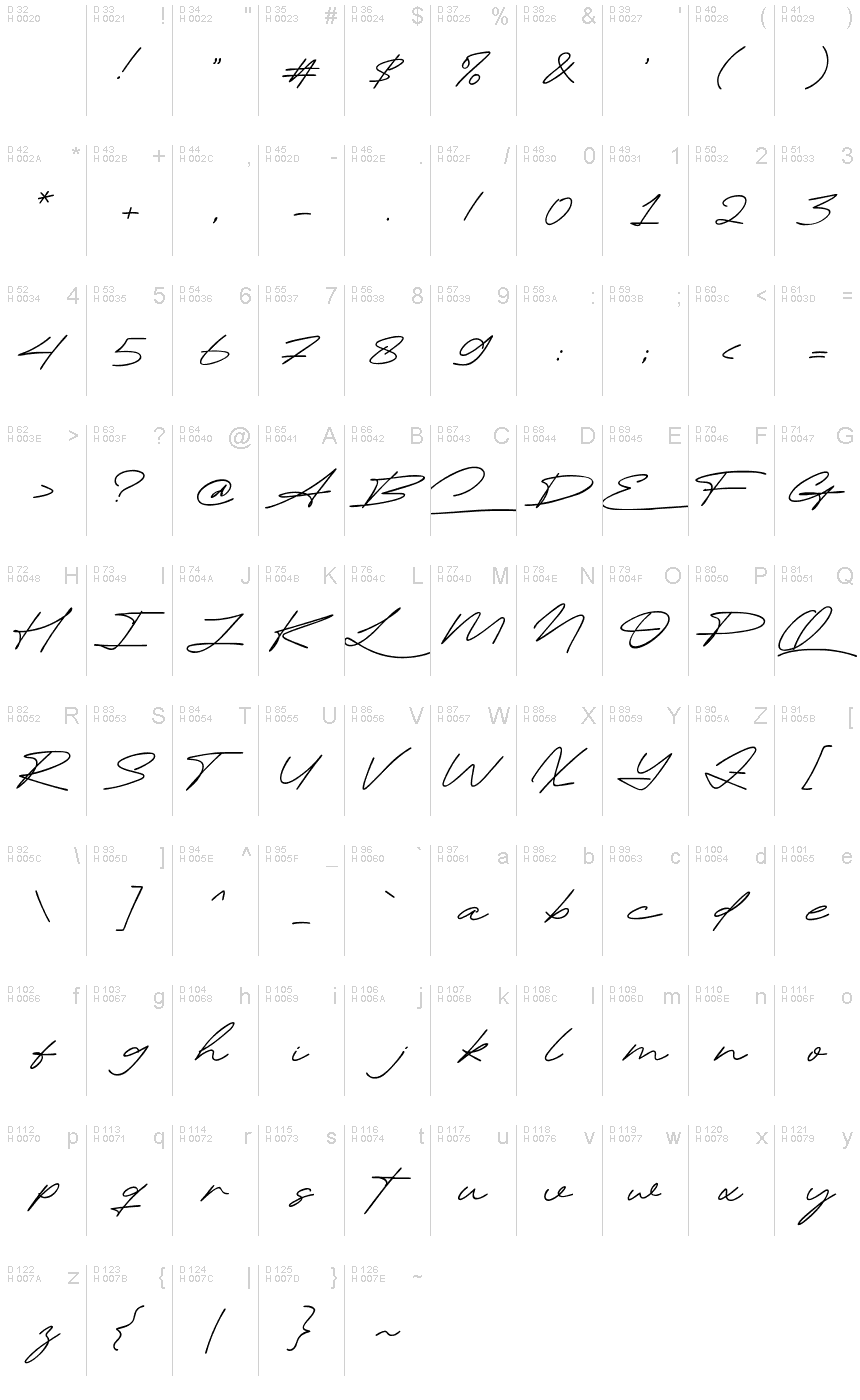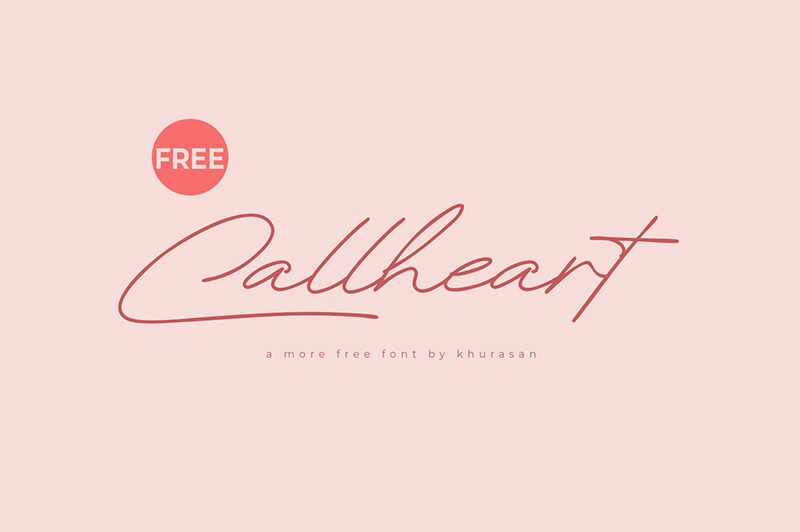
Callheart
Callheart, crafted by the renowned font designer Khurasan, embodies a unique blend of elegance and personal touch. This semi-light signature font brings the charm of handwritten script to any project, making it feel intimate and tailored. With its flowing lines and stylish flourishes, Callheart exudes aesthetic appeal that can effortlessly elevate the visual hierarchy of your design.
Its handwritten style lends authenticity to branding materials, wedding invitations, and bespoke stationery. The fluidity of Callheart's characters is particularly suited for fashion labels, beauty product packaging, and advertising campaigns seeking a touch of sophistication with a human touch.
Invoke the artistry of personal penmanship with Callheart—a font that not only captures attention but also connects on a personal level with its audience.